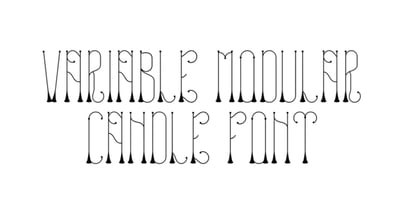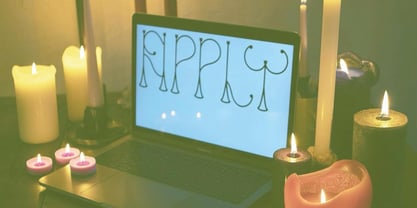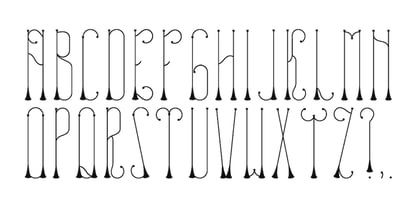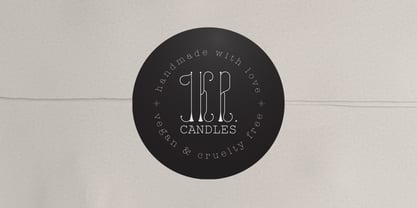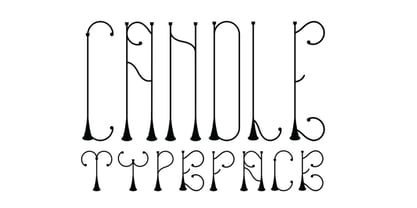
Candle
par Valisual
La famille de polices Candle a été conçue par Valerie Van Den Eynden et publiée par Valisual. Candle contient 4 styles et options de package familial.
Candle is a modular typeface crafted from a limited set of core shapes inspired by the form of a candle. These foundational elements create a cohesive and recognizable visual language, endowing the typeface with a distinctive and conceptual character. Candle delves into the interplay between repetition, structure, and expression, resulting in letterforms that are both minimal and expressive. The family features four styles: Regular, Italic, Outline, and Variable Extended, providing versatility for various visual applications. Primarily designed for display use, Candle is ideal for posters, branding, editorial design, and experimental typography. The character set currently includes only uppercase and lowercase alphabetic characters, with no numerals or symbols, emphasizing its focus on form, concept, and visual expression.
Valisual is an independent type foundry creating expressive typefaces built around recognizable forms, subtle irregularities, and strong visual character. The foundry explores shape, rhythm, and contrast to design fonts that feel human, atmospheric, and distinctive, while remaining functional for everyday use. Valisual focuses on type that adds personality to branding, editorial design, digital media, and visual identities, offering designers tools that communicate mood as well as meaning. Each typeface is developed with attention to detail, balance, and a clear visual voice.